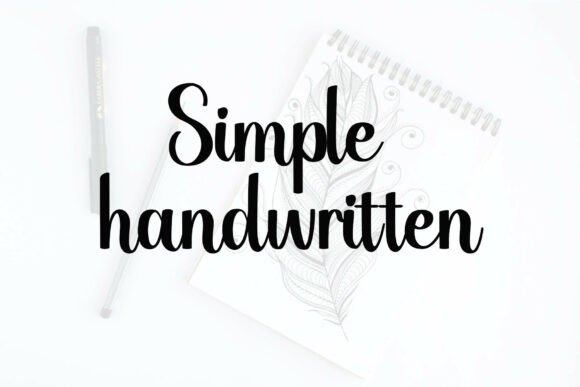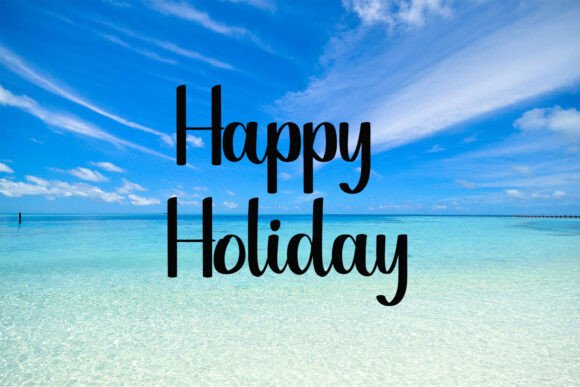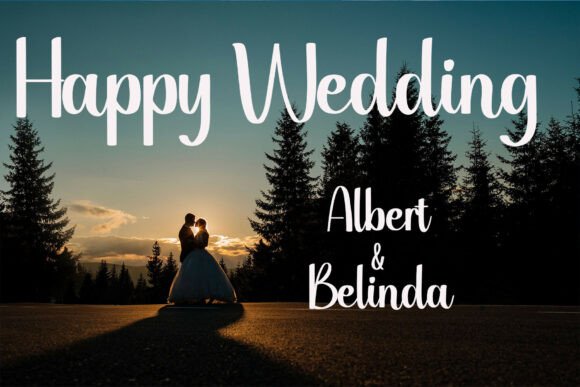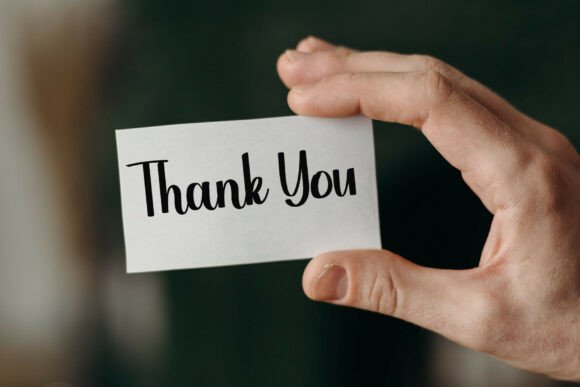
Introducing Chubby Font: Elevate Your Designs with Elegance and Class
In the world of typography, fonts play a crucial role in conveying the tone and personality of a design. For designers and crafters looking to add a touch of sophistication and elegance to their projects, Chubby Font is an excellent choice. This trendy handwritten font boasts a contemporary atmosphere and impeccable form, inspired by timeless classic calligraphy.
The Inspiration Behind Chubby Font
Chubby Font draws inspiration from traditional calligraphy, bringing a sense of nostalgia and classic charm to modern designs. The font’s creator aimed to craft a typeface that would seamlessly blend the elegance of classic calligraphy with the playfulness and approachability of handwritten fonts. The result is a font that exudes sophistication and refinement, making it perfect for a wide range of design applications.
Key Features of Chubby Font
- Trendy and Contemporary: Chubby Font features a modern and trendy design that will instantly elevate your projects.
- Handwritten with Flair: The font’s handwritten style adds a personal touch to your designs, making them more approachable and engaging.
- Inspired by Classic Calligraphy: Chubby Font’s roots in traditional calligraphy give it a timeless quality that will never go out of style.
- Impeccable Form: The font’s carefully crafted letterforms ensure that your text is always legible and visually appealing.
- Versatile: Chubby Font can be used for a wide range of design projects, from branding and advertising to packaging and digital media.
Use Cases for Chubby Font
Chubby Font’s versatility makes it an excellent choice for various design applications. Here are some use cases to consider:
- Branding and Logo Design: Use Chubby Font to create a sophisticated and memorable brand identity.
- Wedding and Event Design: Add a touch of elegance to your wedding invitations, programs, and other event materials.
- Packaging Design: Elevate your product packaging with Chubby Font’s refined and classy style.
- Digital Media: Use Chubby Font in your digital projects, such as social media graphics, blog posts, and email newsletters.
- Stationery and Paper Products: Create beautiful stationery, business cards, and paper products with Chubby Font.
Tips for Using Chubby Font Effectively
To get the most out of Chubby Font, follow these tips:
- Pair with Neutral Backgrounds: Let Chubby Font be the focal point by pairing it with neutral backgrounds.
- Experiment with Colors: Try out different colors to find the perfect match for your design.
- Use for Headings and Titles: Chubby Font is perfect for headings and titles, adding a touch of elegance to your text.
- Mix with Other Fonts: Combine Chubby Font with other fonts to create a unique and visually appealing typography.
Chubby Font is an exceptional choice for designers and crafters looking to add elegance and class to their projects. With its trendy and contemporary design, impeccable form, and inspiration from timeless classic calligraphy, this font is sure to elevate your designs to the next level. Whether you’re working on branding, packaging, digital media, or stationery, Chubby Font is a versatile and sophisticated solution that will help you achieve your design goals.